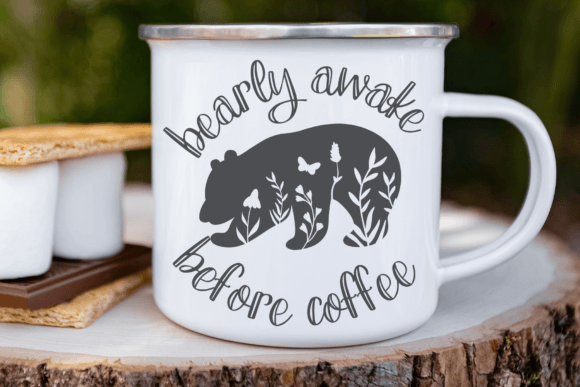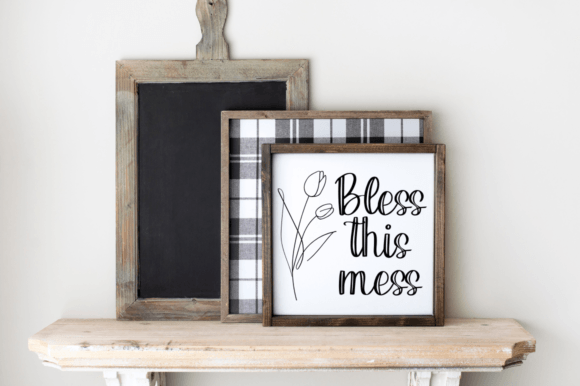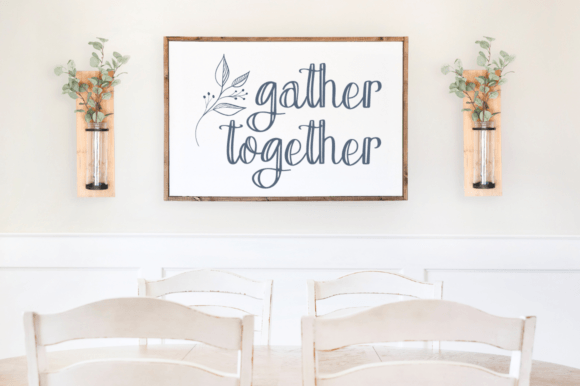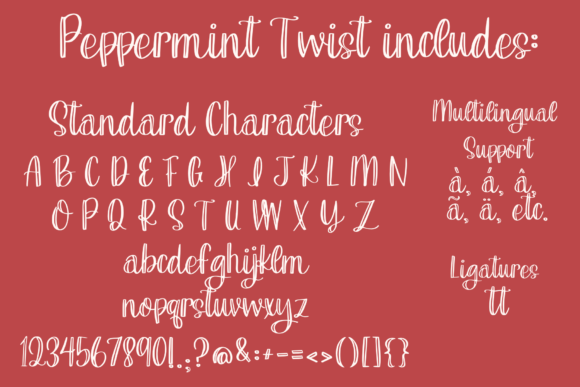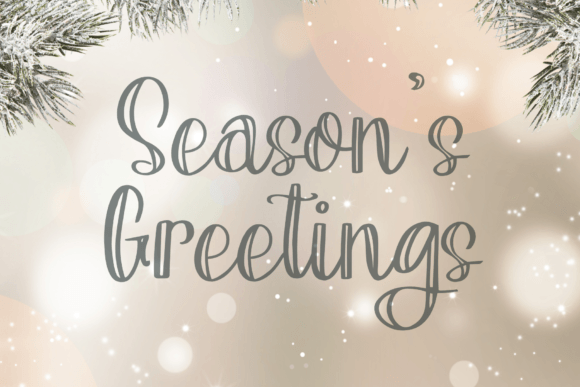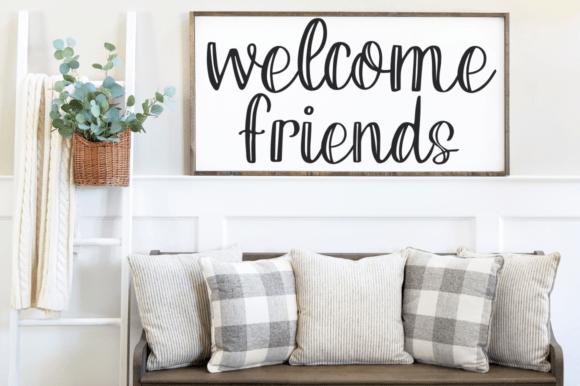
Introduction to Peppermint Twist Font
Peppermint Twist is a sweet, swirly, handwritten script font.
Perfect for holiday decor, greeting cards, t-shirt design, stickers, social media, and any craft or project .
Key Features of Peppermint Twist Font